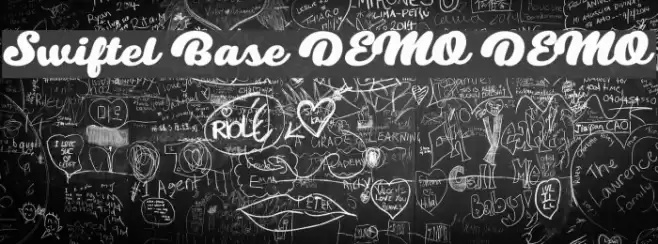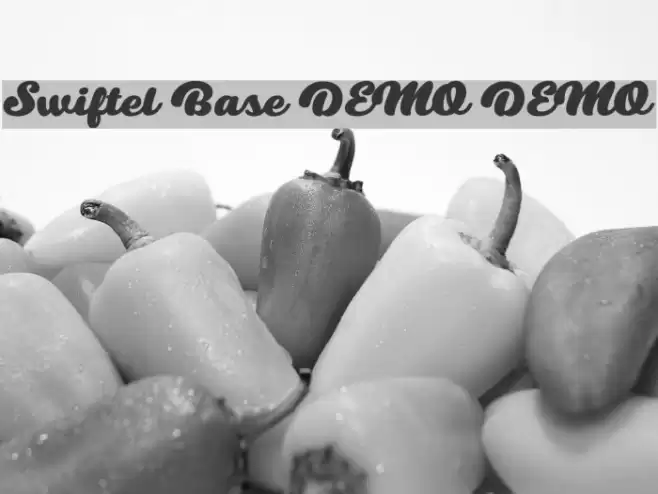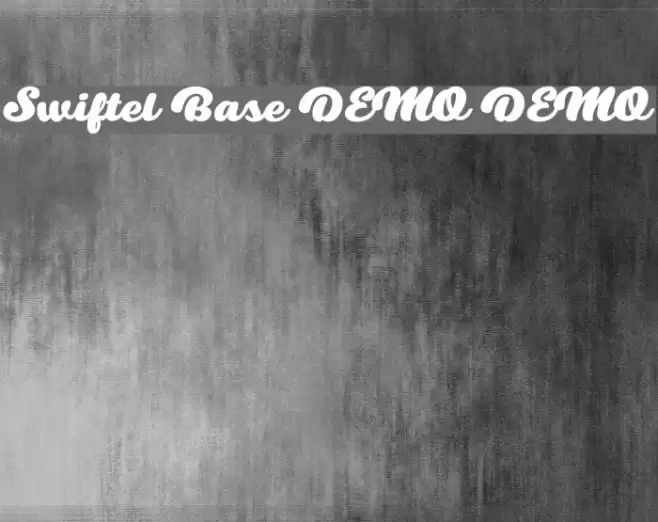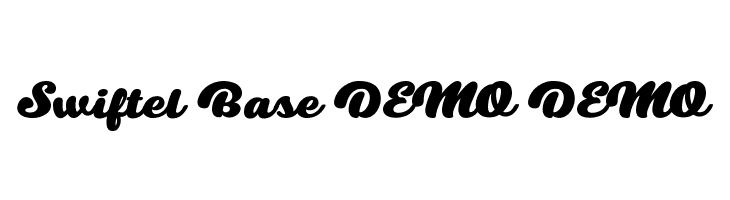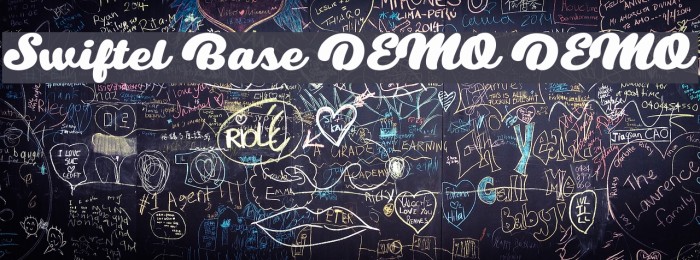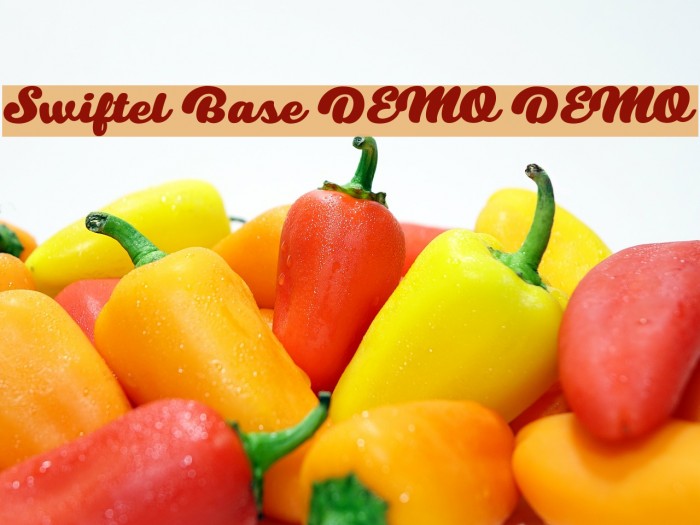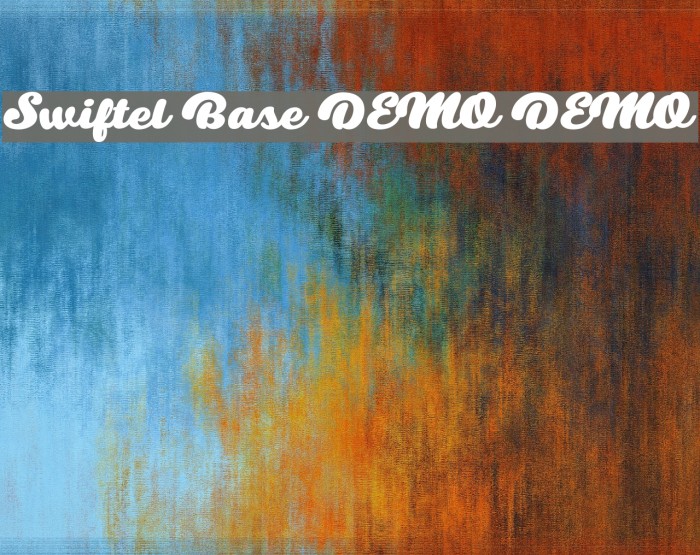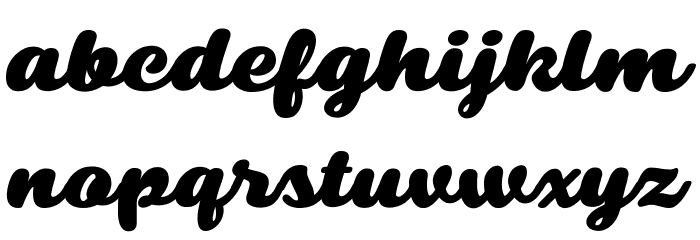
Swiftel Base DEMO DEMO Font
Swiftel Base DEMO DEMO Description
This font features a bold and flowing script style, characterized by its smooth, connected letters that create a sense of movement and elegance. The uppercase and lowercase letters maintain a consistent stroke weight, providing a harmonious and balanced appearance. The font's design is reminiscent of classic calligraphy with a modern twist, making it versatile for various design applications. Its boldness ensures readability while the cursive style adds a touch of sophistication. The characters are closely spaced, enhancing the cohesive look of the text.
A bold, flowing script font with a modern calligraphic style from Uncategorized fonts.
- Proposed Projects: Ideal for branding, invitations, logos, and headlines where a touch of elegance and personality is desired.
- Character Spacing: Tight
- Use Case: Logos, Headlines, Invitations